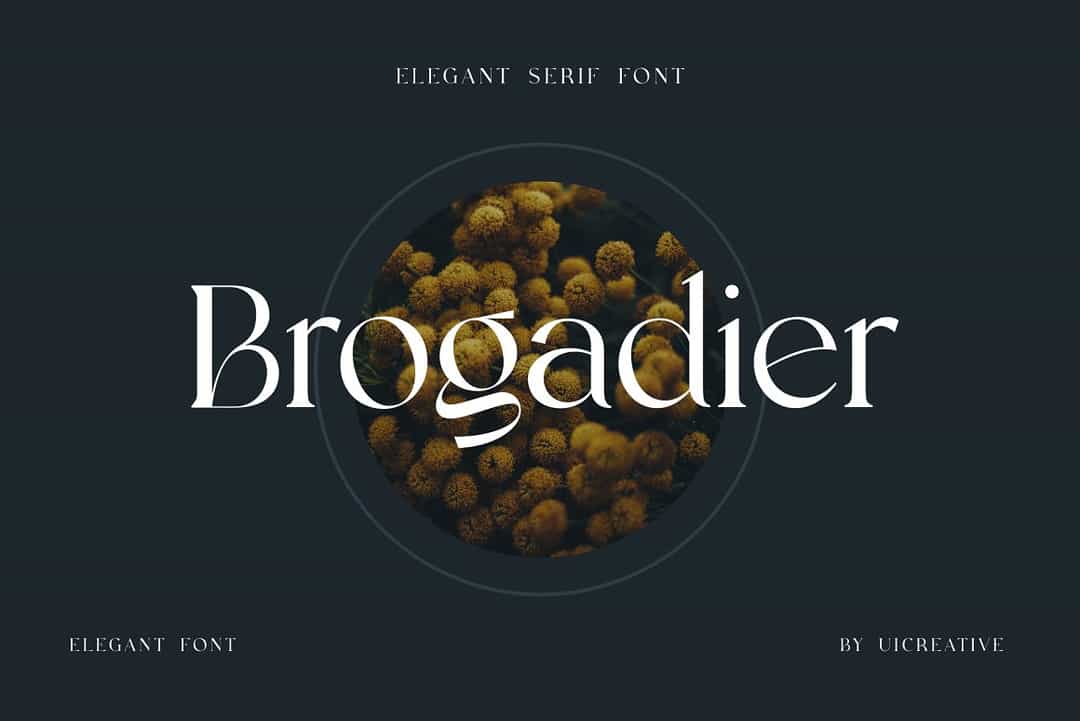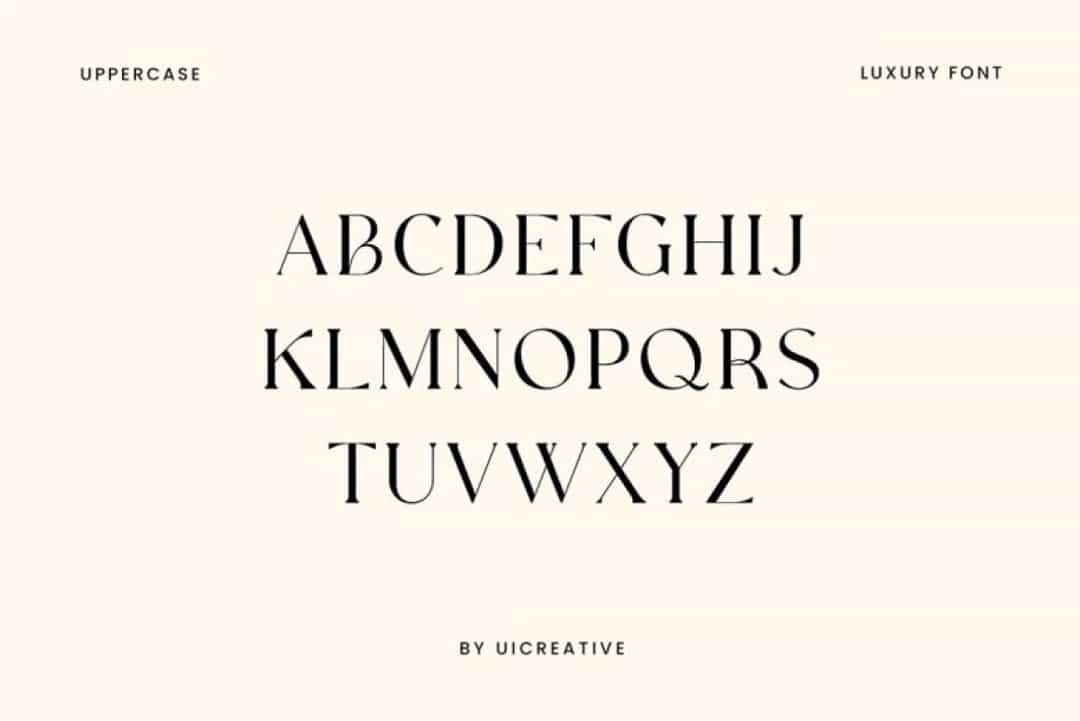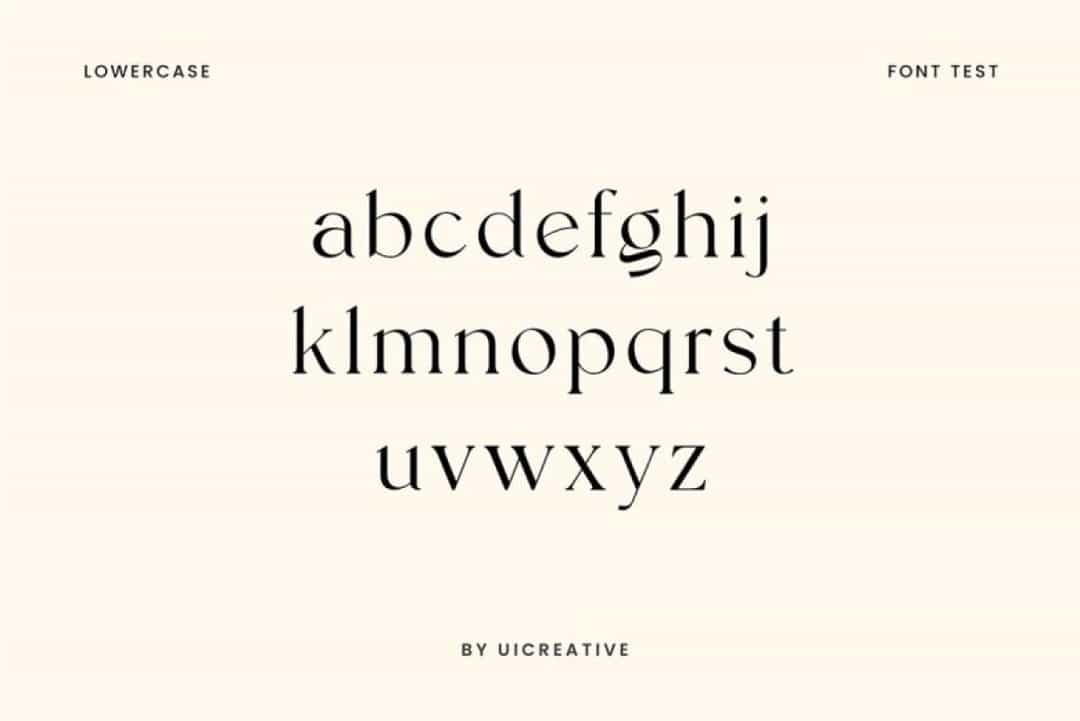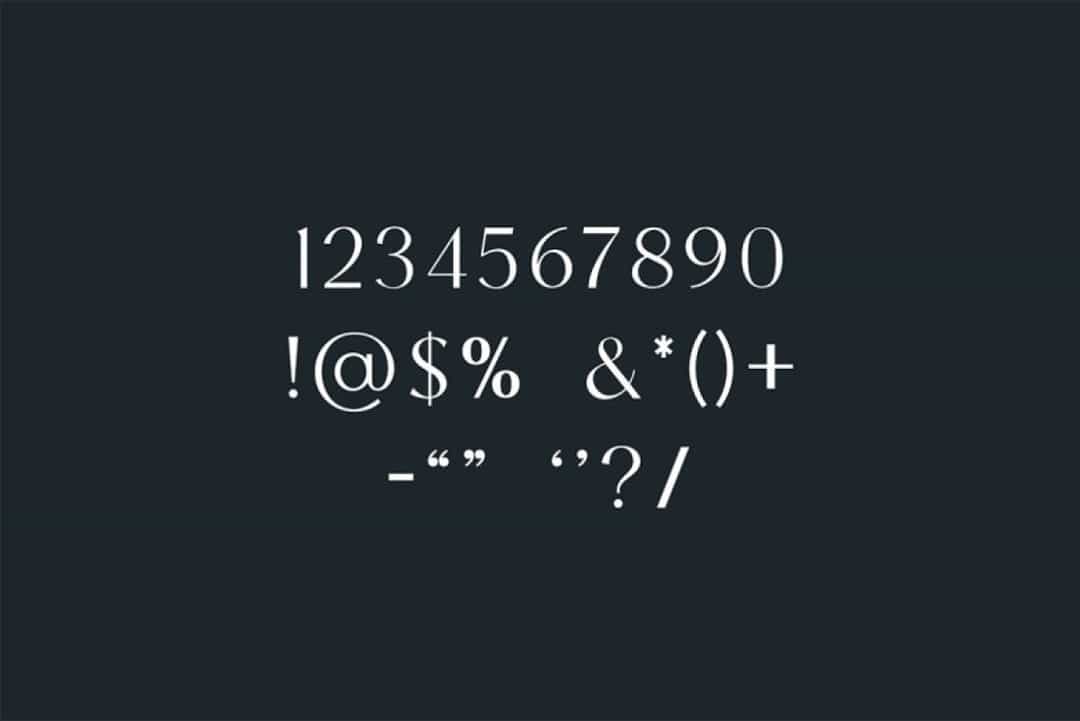
Brogadier is an elegant serif typeface that exudes class and contemporary sensibility, making it suitable for use across many projects such as stationary, signatures, logos wedding, typography quote magazines or book covers as well as headers on websites as well as packaging clothing branding design design projects and much more.